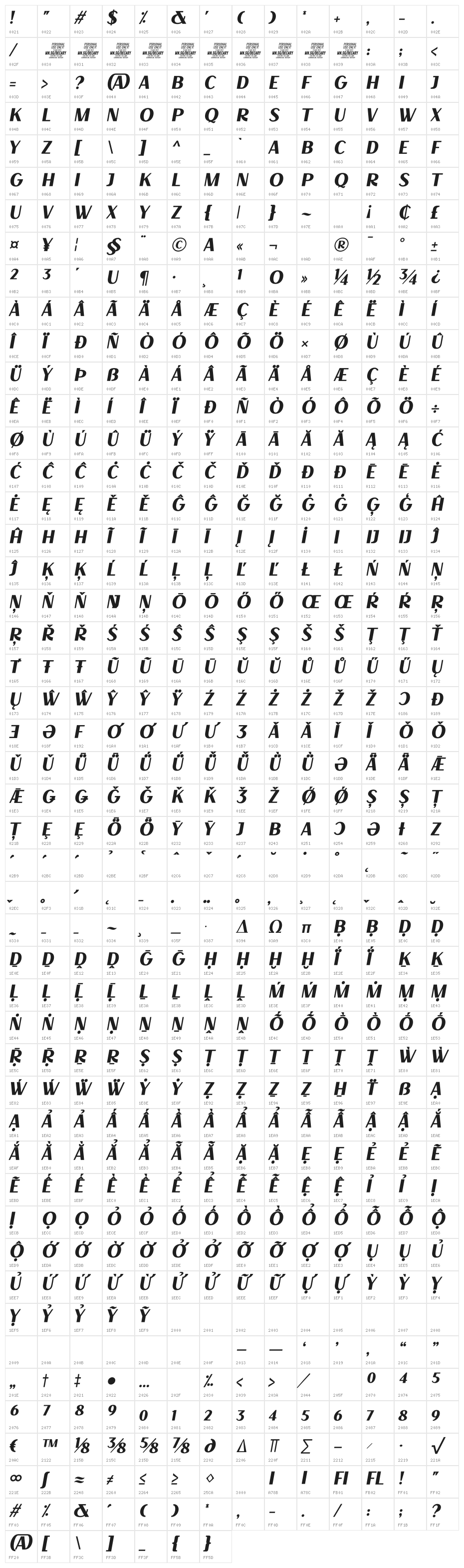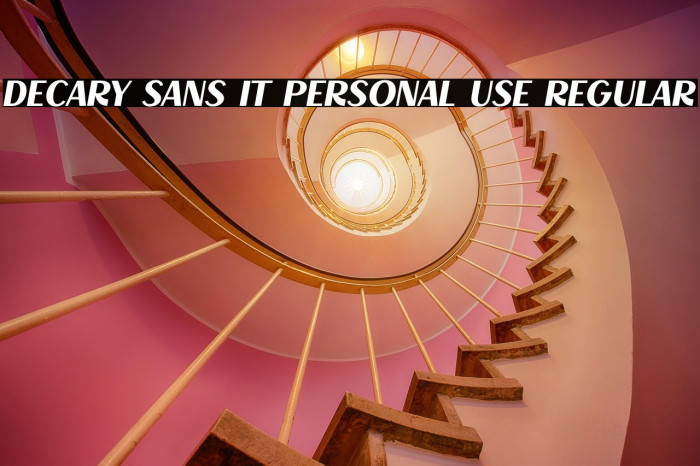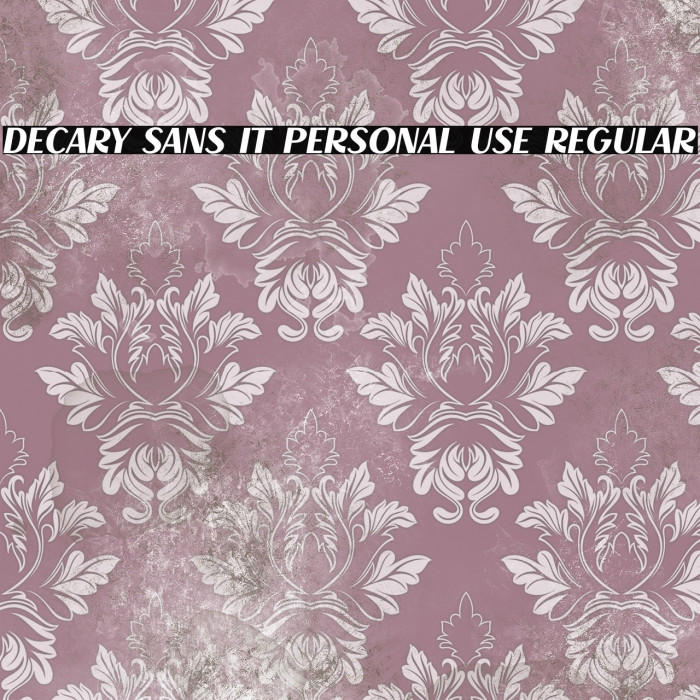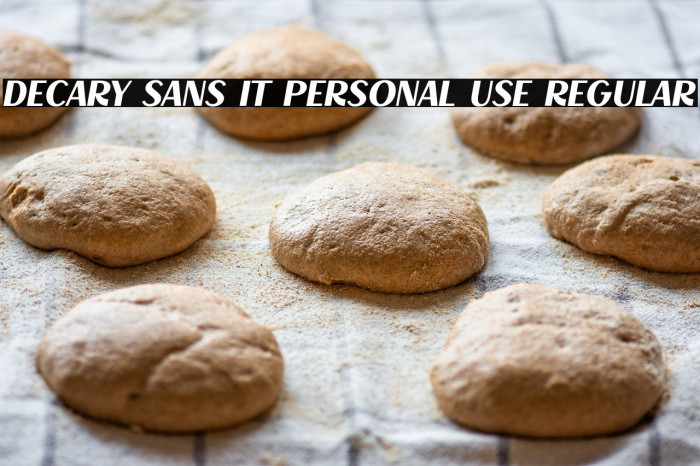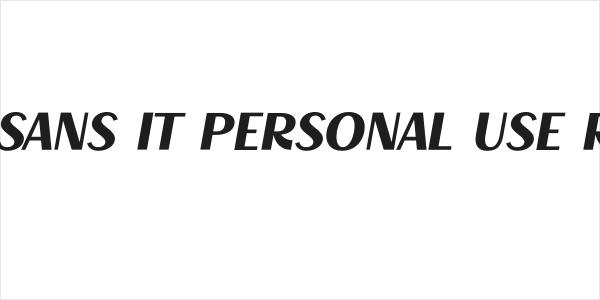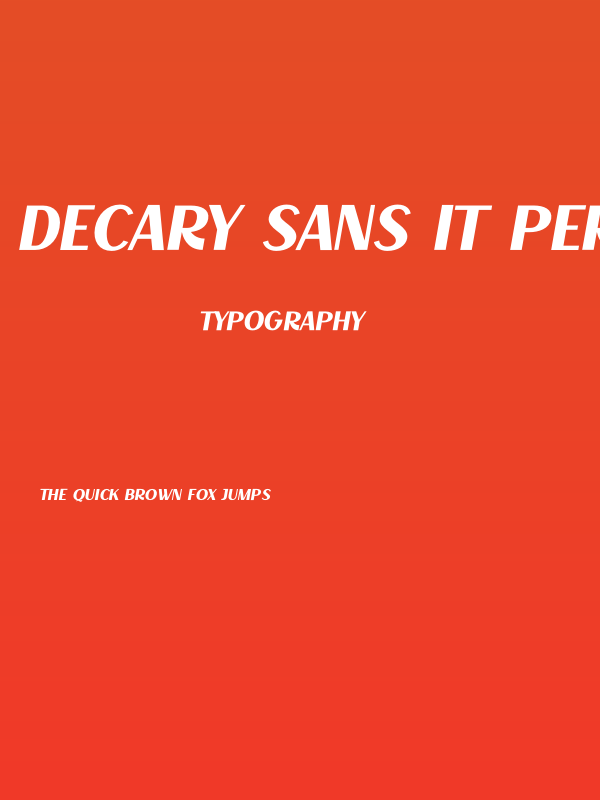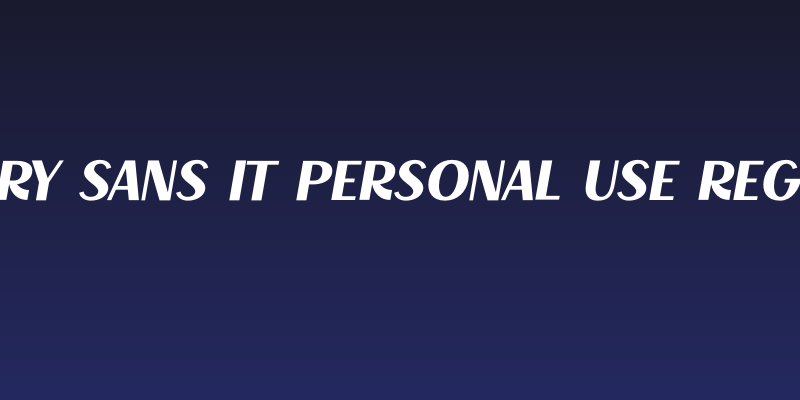
Decary Sans It PERSONAL USE Regular Font
Decary Sans It PERSONAL USE Regular Description
This font features a bold and dynamic sans-serif style with a slight italic slant, giving it a sense of movement and modernity. The characters are well-defined with clean lines and a uniform stroke width, providing a strong and confident appearance. The uppercase letters are slightly condensed, which enhances the boldness and makes it suitable for impactful headlines. The lowercase letters maintain the same stylistic approach, ensuring consistency across different text cases. The numerals and special characters are designed to match the overall aesthetic, making them versatile for various design needs.
Proposed ProjectsIdeal for branding, advertising, and editorial design projects where a strong and modern typeface is needed.